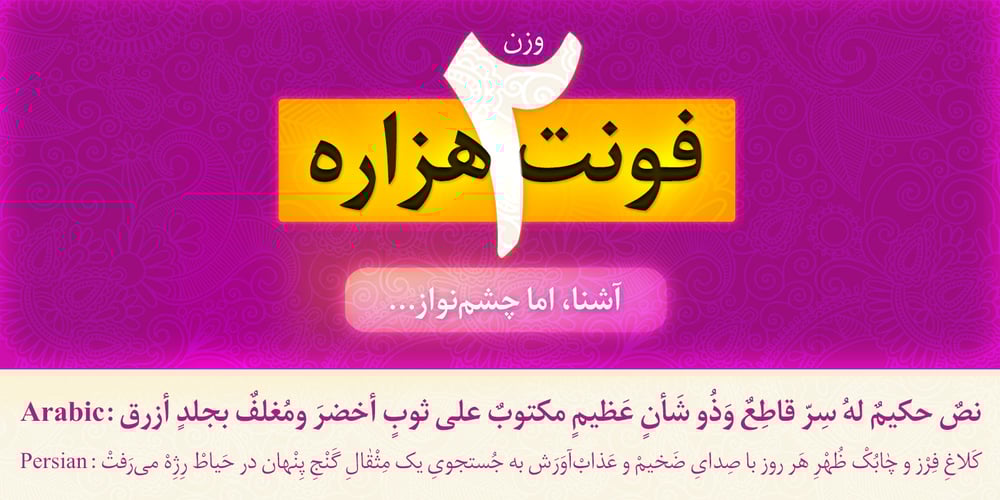
Hezareh
Hezareh font
Hezareh Font Family was designed by Shahab Siavash and published by Si47ash Fonts. Hezareh contains 2 styles and family package options. Familiar, yet eye-catching! Hezareh with its 2 weights brings a modern and clean serif Arabic/Persian typeface to life! Shahab Siavash, the designer has done more than 30 fonts and got featured on Behance, Microsoft, McGill University research website, Hackernoon, Fontself, FontsInUse,… Hezareh text and headline font which is one of his latest designs, already got professional typographers, lay-out and book designers’ attention as well as some of the most recognizable publications in Arabic/Persian communities.